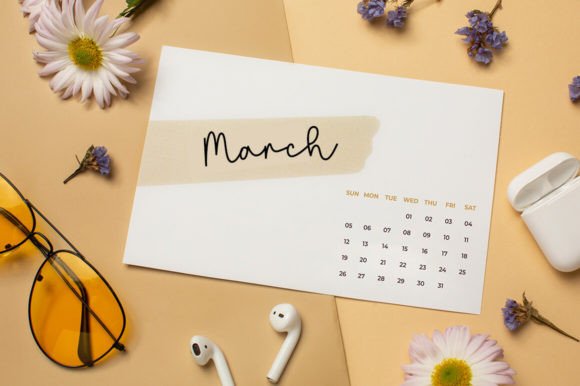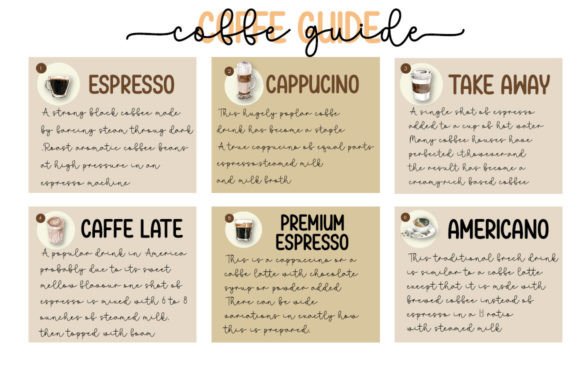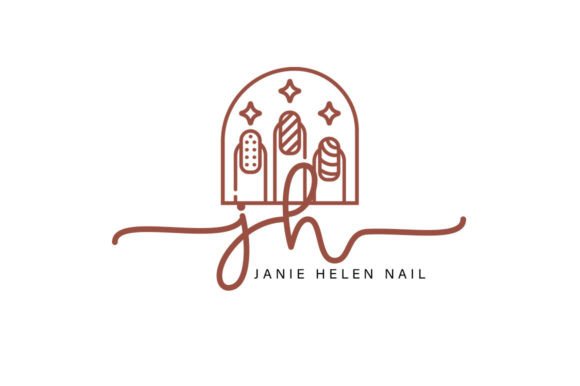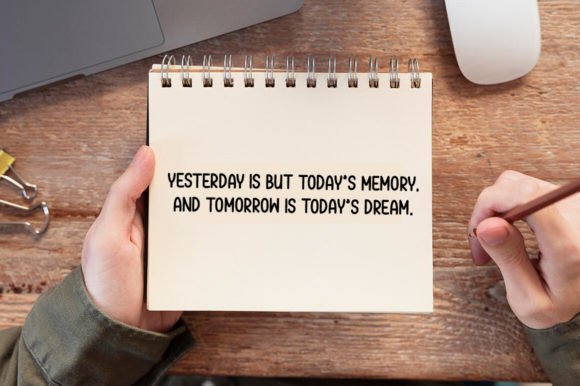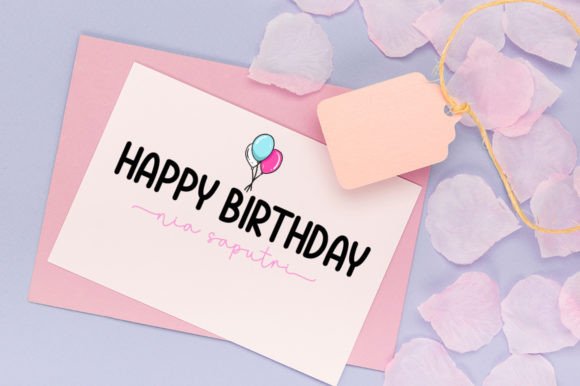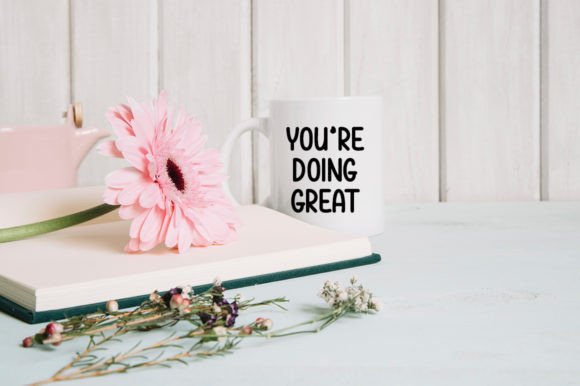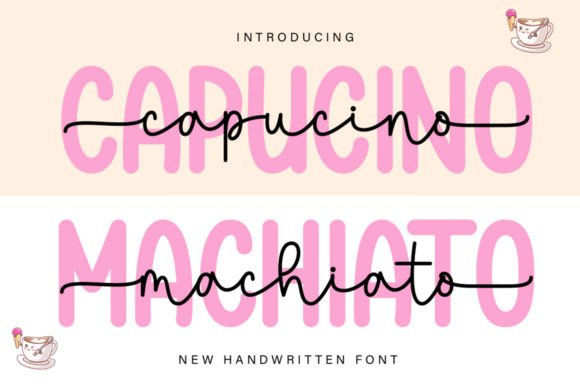
Introducing Capucino Machiato Duo Font: Elevate Your Designs with Elegance
In the world of typography, a font can make or break the aesthetic of a design. For those seeking a touch of romance and sophistication, the Capucino Machiato Duo Font is an exceptional choice. This stylish and delicate font duo, consisting of a sans serif and script font, is versatile enough to be used across a wide spectrum of applications, from greeting cards to headlines, and everything in between.
Aesthetic Appeal and Versatility
Capucino Machiato Duo Font stands out for its unique blend of modernity and elegance. The sans serif font offers a clean and contemporary look, while the script font adds a touch of whimsy and romance. This combination allows designers to create visually appealing and engaging content that captures the essence of their message. Whether you’re working on a wedding invitation, a branding project, or a digital blog post, this font duo provides the perfect balance of style and readability.
One of the key features of Capucino Machiato Duo Font is its PUA (Private Use Area) encoding. This means that all glyphs and swashes are easily accessible, giving designers the flexibility to experiment with different styles and effects without needing additional software or complicated workarounds. The PUA encoding ensures that you can effortlessly incorporate intricate details and flourishes into your designs, elevating them to a professional level.
Applications of Capucino Machiato Duo Font
The versatility of Capucino Machiato Duo Font makes it suitable for a myriad of design projects. Here are a few examples:
- Greeting Cards: Add a personal touch to your greeting cards with the elegant script font, perfect for special occasions like weddings, anniversaries, and birthdays.
- Headlines and Titles: Use the sans serif font for headlines and titles to provide a modern and clean look that captures attention.
- Branding and Logos: Create a memorable brand identity with the unique combination of the sans serif and script fonts, ideal for businesses looking to stand out.
- Digital Content: Enhance your blog posts, social media graphics, and website content with a touch of elegance and sophistication.
Why Choose Capucino Machiato Duo Font?
With so many fonts available, why choose Capucino Machiato Duo Font? Here are a few compelling reasons:
- Unique Style: The combination of sans serif and script fonts offers a unique aesthetic that’s hard to find elsewhere.
- Ease of Use: PUA encoding makes it easy to access and use a wide range of glyphs and swashes.
- Versatility: Suitable for both digital and print projects, making it a valuable addition to any designer’s toolkit.
- Romantic Touch: Adds a touch of romance and elegance to any design, perfect for projects requiring a personal or sophisticated feel.
Capucino Machiato Duo Font is more than just a font duo; it’s a design solution that can elevate your projects to new heights of elegance and sophistication. With its unique blend of modern sans serif and whimsical script, PUA encoding for easy access to glyphs and swashes, and versatility across various applications, it’s an indispensable tool for designers and crafters alike. Whether you’re creating romantic greeting cards, sleek headlines, or distinctive brand identities, Capucino Machiato Duo Font guarantees to add that special touch that makes your designs truly memorable.